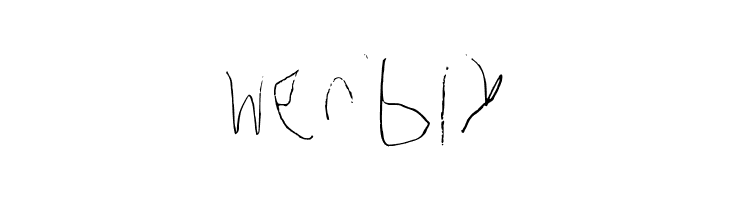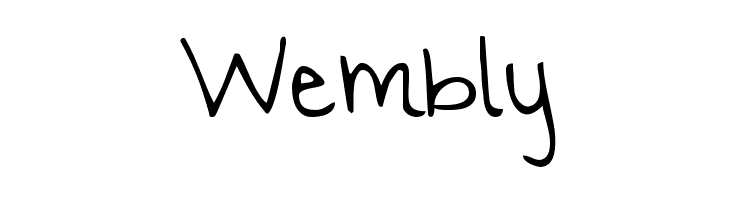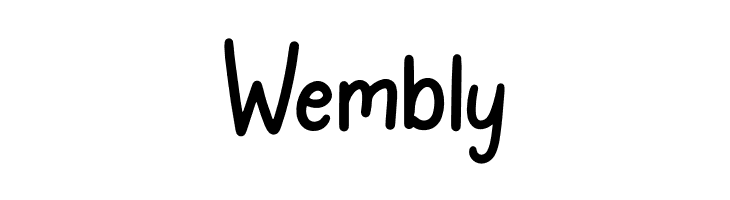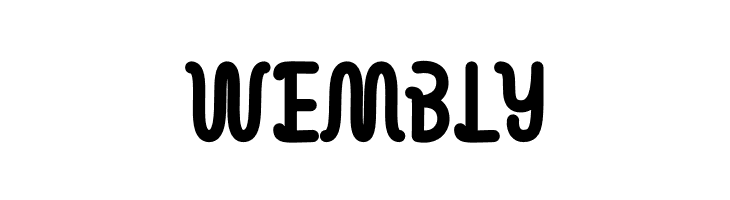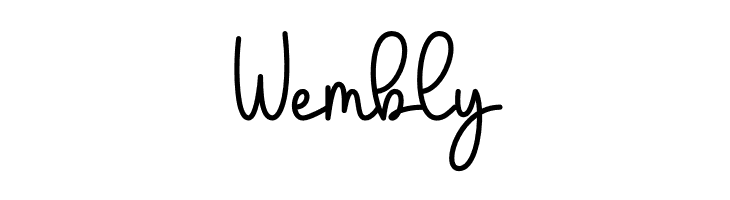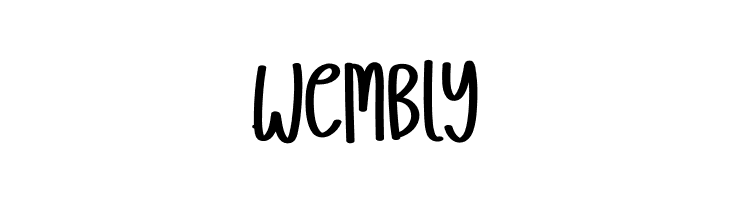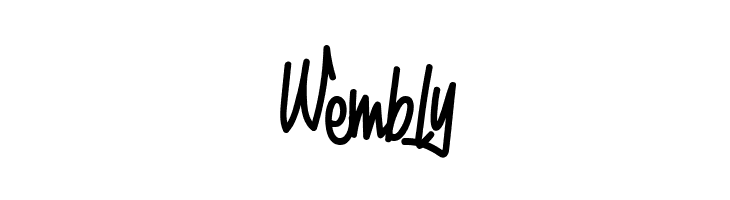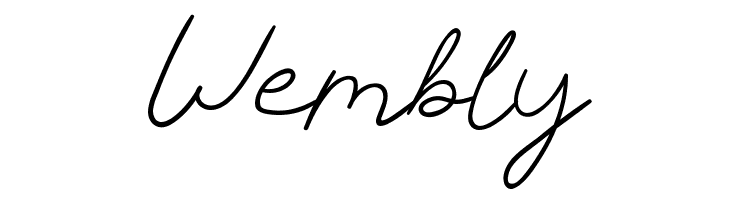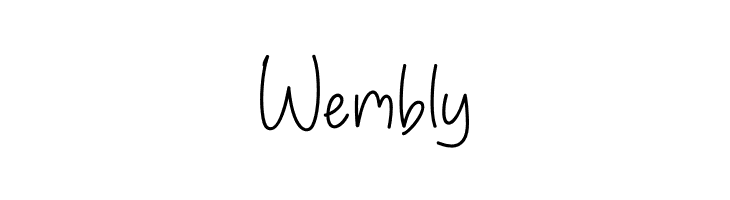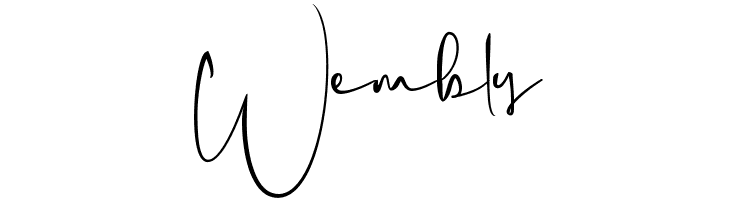
A textured, handwritten font with a casual and organic style.
A playful, casual handwritten font with smooth, flowing lines.
A playful, rounded font with a whimsical, mushroom-like appearance.
A playful, bold handwritten font with smooth, rounded edges.
A bold, flowing script font with elegant curves and dynamic energy.
A bold, hand-drawn font with a rough, sketch-like appearance.
A bold, hand-drawn font with an expressive and dynamic style.
A bold, hand-drawn font with an expressive and artistic style.
Elegant, casual handwritten script with thin, flowing lines.
A bold, expressive script font with a hand-drawn, artistic style.
A playful, bold handwritten font with a friendly and casual style.
A playful, handwritten font with smooth, rounded edges and a whimsical style.
A casual, handwritten-style font with fluid, slightly slanted characters.
A playful, hand-drawn font with a childlike and whimsical style.
A playful, handwritten-style font with irregular, dynamic strokes.
Tall, playful handwritten font with a casual, informal feel.
A playful, handwritten font with a friendly and casual style.
A bold, playful handwritten font with dynamic strokes and an informal style.
A casual, handwritten font with irregular, organic strokes.
A playful, childlike handwritten font with rounded, irregular strokes.